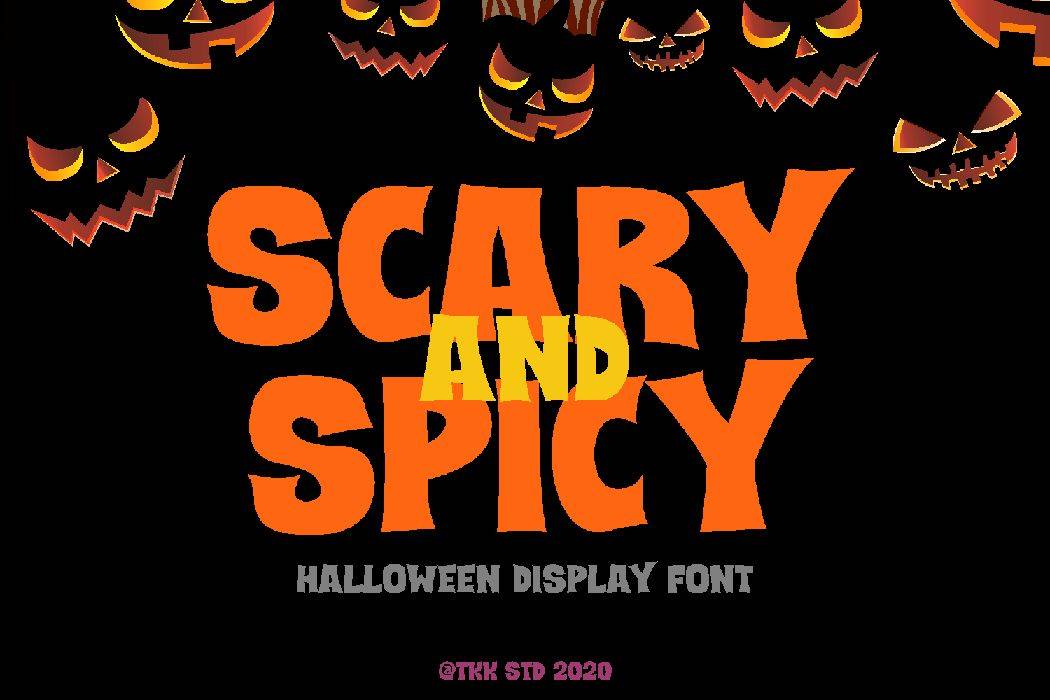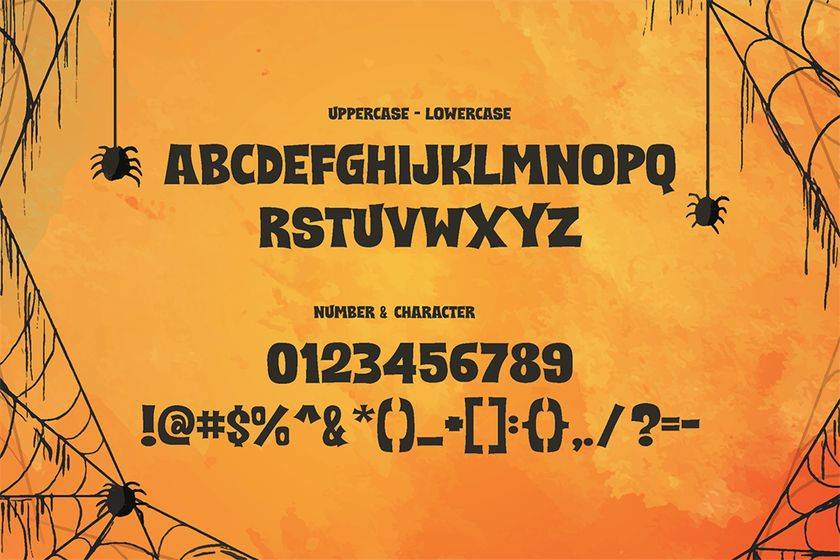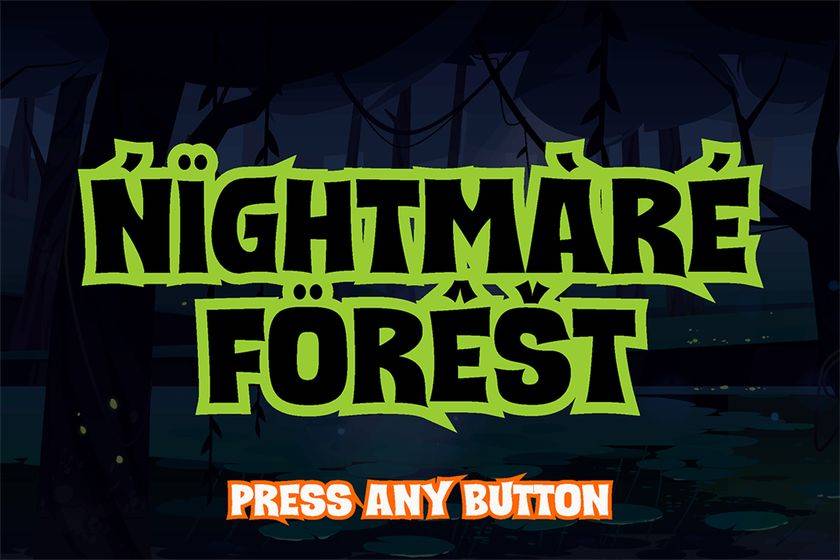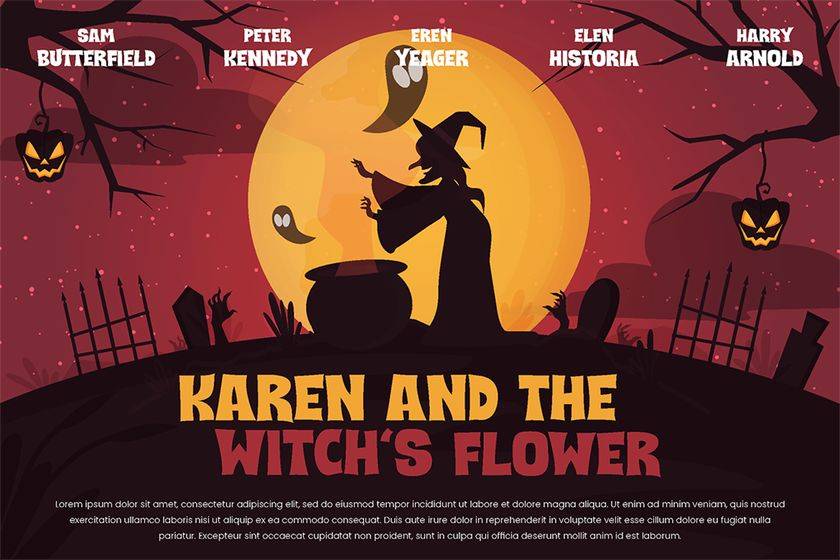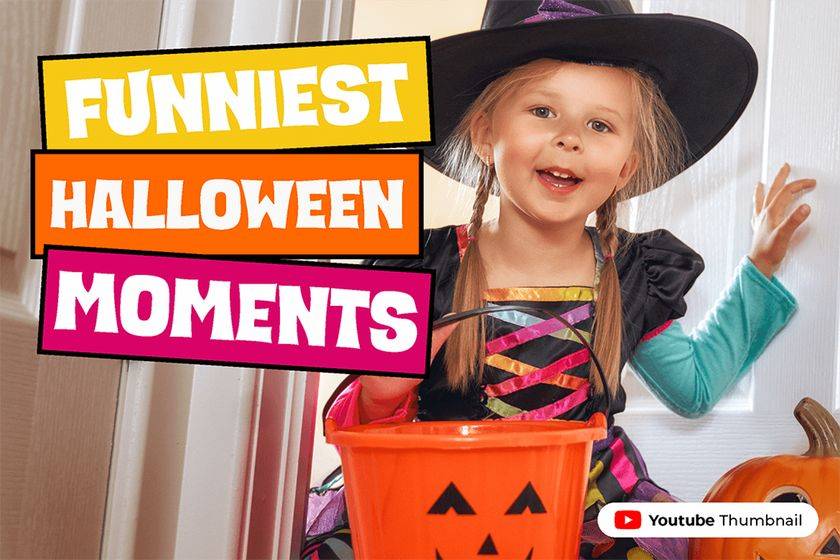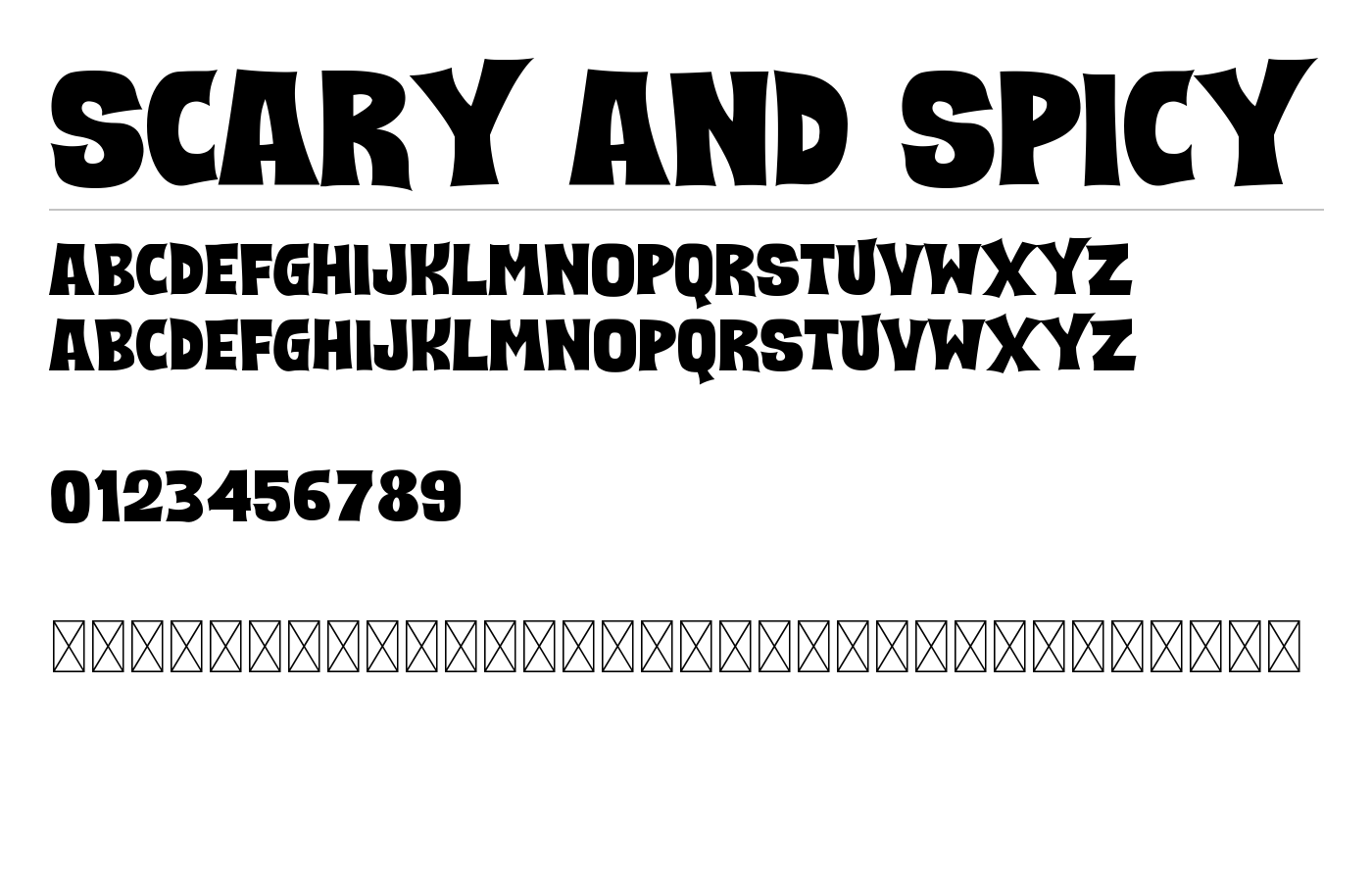
Scary and Spicy is a bold, playful sans serif font characterized by its chunky, uneven strokes and slightly distorted letterforms that create a quirky, dynamic feel. With its wide, heavy shapes and irregular edges, it’s perfect for eye-catching headlines, posters, and branding that wants to convey a fun, energetic, and slightly spooky vibe. This font works especially well for creative projects like Halloween themes, playful packaging, or any design needing a bold, whimsical personality.
Scary and Spicy Font
About Scary and Spicy Font